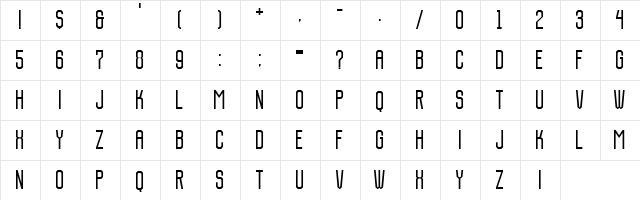
Danderyd Gothic Regular
Design Context for Danderyd Gothic Typeface
Danderyd Gothic has the quiet confidence of well-executed sans-serif typography: versatile, unobtrusive, and dependable at any size.
Font Pairing: Works well alongside a characterful serif or display font that can carry the expressive load while Danderyd Gothic handles the functional copy.
Pro Tip: Pair Danderyd Gothic with a display or serif font for headlines — its neutral character makes it an excellent supporting player in complex typographic systems.